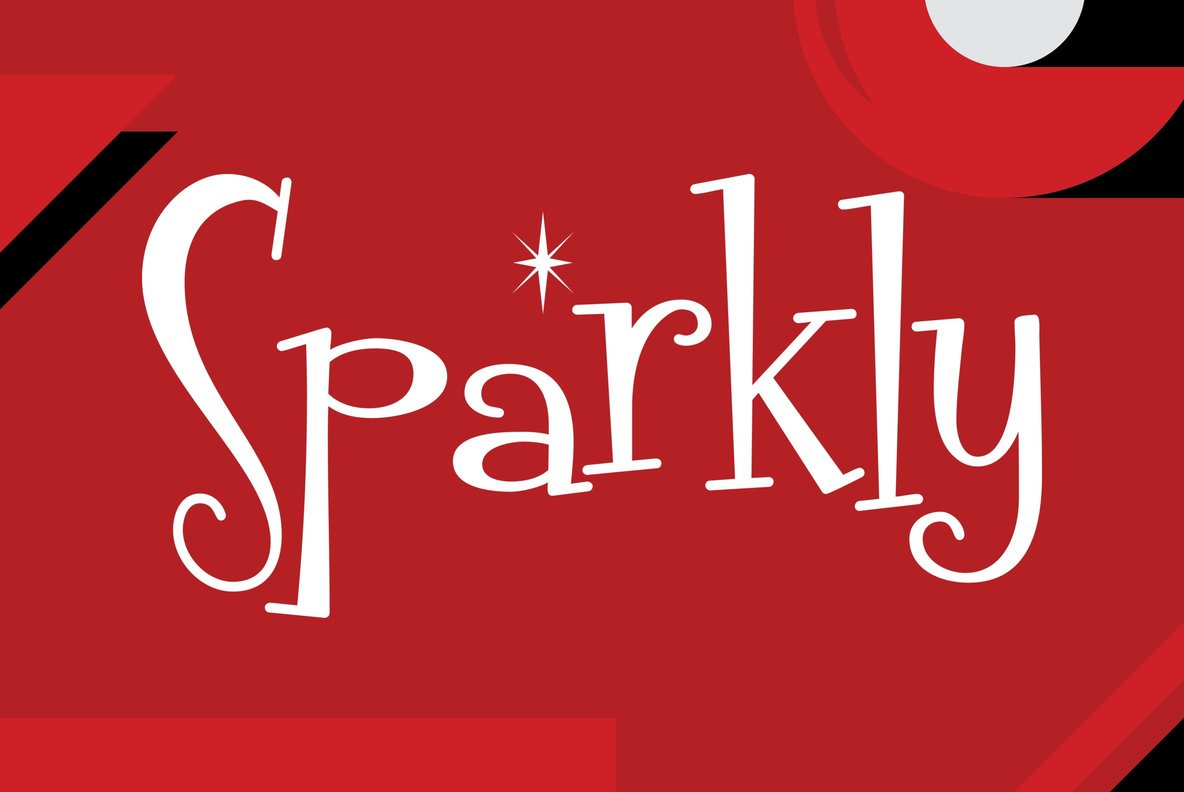
Fontdinerdotcom Sparkly Font
Fontdinerdotcom Sparkly Font is perfect for retro diner branding, vintage restaurant signage, nostalgic food packaging, classic Americana designs, 1950s-themed events, rockabilly band merchandise, drive-in movie promotions, and cheerful advertising campaigns. This delightful typeface works wonderfully in both digital applications and print media where fun, nostalgia, and sparkling personality are essential design components.
What makes Fontdinerdotcom Sparkly Font so exciting is its perfect capture of mid-century American diner culture with glittering letterforms that evoke the golden age of roadside restaurants and soda fountains. The font features playful, bubbly characters with sparkling decorative elements, cheerful proportions, and authentic 1950s styling that instantly transports viewers to an era of optimism and simple pleasures. Its joyful personality and nostalgic charm make it ideal for brands seeking to communicate happiness, comfort food experiences, and wholesome American values while maintaining excellent readability.
The Fontdinerdotcom Sparkly Font family includes various stylistic options with different sparkle intensities, along with solid versions and decorative ornaments. Each style maintains the typeface's diner-inspired character while offering comprehensive character sets including retro numerals, period-appropriate punctuation marks, and special symbols designed to enhance vintage American communications and nostalgic branding efforts.
This remarkable typeface represents the perfect marriage of 1950s nostalgia and contemporary functionality for food service and entertainment industries. Whether you're developing classic diner identities, creating vintage-themed marketing materials, or designing retro event promotions, Fontdinerdotcom Sparkly Font Free Download provides the authentic charm and versatility needed to create memorable customer experiences. The font's diner heritage makes it particularly effective for restaurants, ice cream parlors, drive-in theaters, and businesses celebrating classic American culture.
The carefully preserved vintage characteristics and optimized sparkle effects in Fontdinerdotcom Sparkly Font ensure both nostalgic authenticity and modern performance across all applications. Its cheerful presence makes it perfect for menu headers, storefront signs, and promotional materials where its full retro sparkle can create emotional connections with customers seeking comfort, nostalgia, and genuine hospitality experiences.